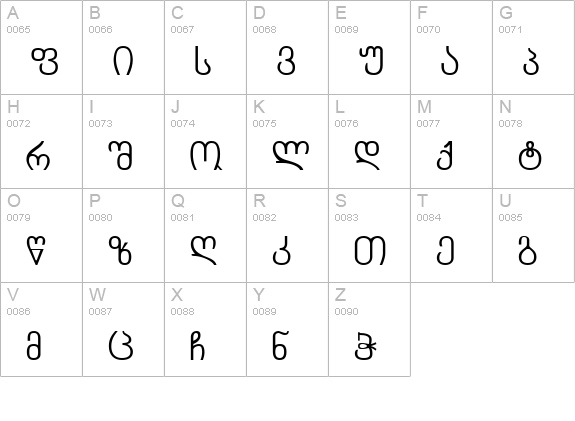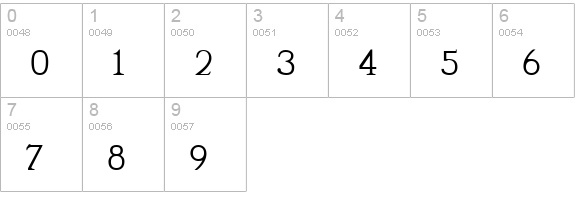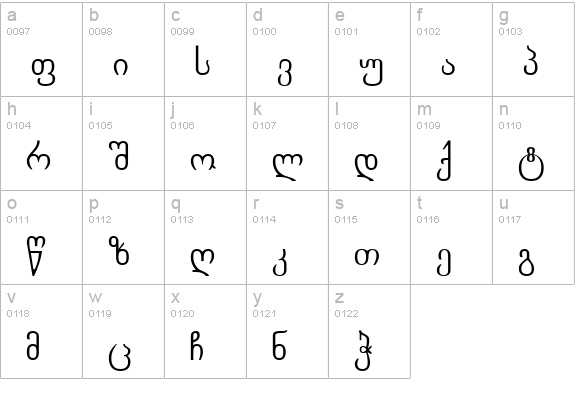
Chveulebrivy-ITV Font Details
Chveulebrivy-ITV font is a modern and stylish typeface that exudes elegance and sophistication. With its sleek lines and contemporary design, this font is perfect for a wide range of creative projects. Whether you're designing a logo, website, or marketing materials, Chveulebrivy-ITV font will add a touch of class to your work. What sets Chveulebrivy-ITV font apart is not only its aesthetic appeal but also its versatility. It comes in a variety of weights and styles, making it suitable for various design needs. Whether you need a bold headline font or a subtle body text font, Chveulebrivy-ITV has got you covered. The best part? Chveulebrivy-ITV font is available for free download at FontsMarket.com. That's right, you can get your hands on this stunning font without spending a dime. So why wait? Download Chveulebrivy-ITV font today and take your designs to the next level.